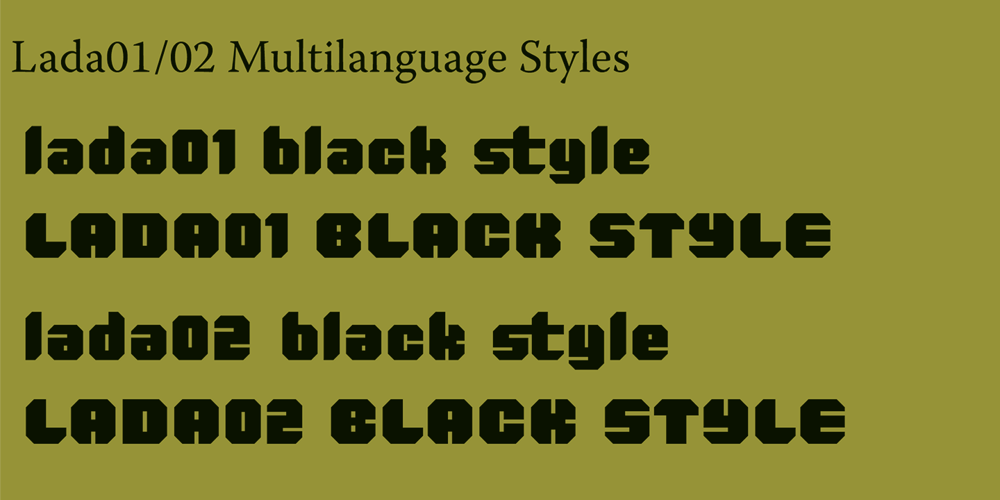
Lada Font Family was designed by Kuncho Kunev and published by HS Fonts. Lada contains 2 styles and family package options. About LADA Font Family The font family LADA is available in 1 weights and 2 styles: Black. There are 2 style variations of the font style. Type Designer: Kuncho Kunev The name of family – Lada is the name of slavonic goddes of harmony, joy, youth and love. Lada is also the name of our main designer’s wife. Release date: December, 2020 HermesSOFT Ltd. Lada styles design is based on the design of corporate identity of the building National Palace of Culture, opened at 1981 in Sofia, Bulgaria. All the labels, tables, symbols and information identity was based on this design idea. There are some photos of these labels. There also are included all Cyrillic vowels with accents that are really necessary for the professional typesetting in Cyrillic languages. Supported Languages: Western Europe (Greek not included), Central/Eastern Europe, Baltic, Turkish, Romanian, Cyrillic. Supported Code Pages: Macintosh and Windows, any for above languages. Opentype features includes kern and ligatures.